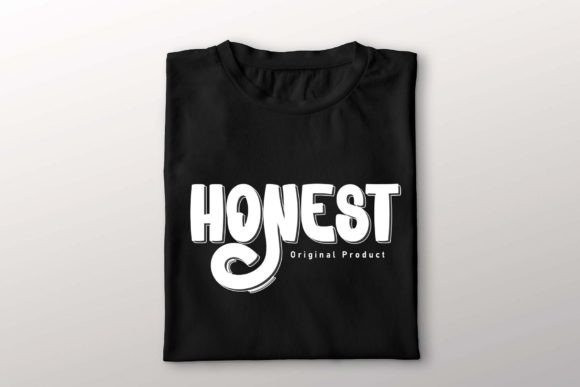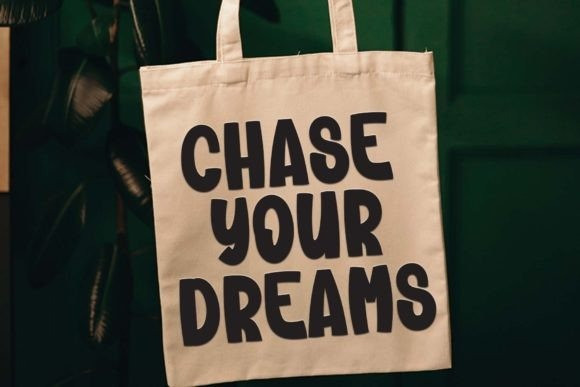
Night Winter Typeface
Night Winter Typeface is a lovely and timeless handwritten font. It is the best choice for creating eye catching logos, branding and quotes. Every letter has a unique and beautiful touch, which will make your design come alive!